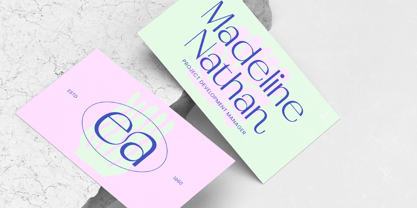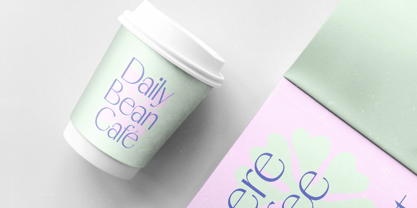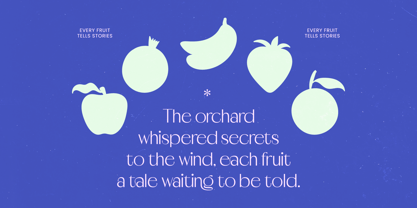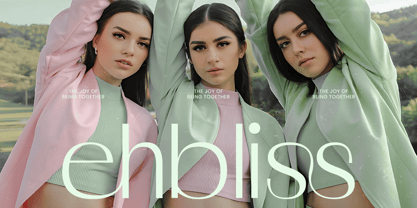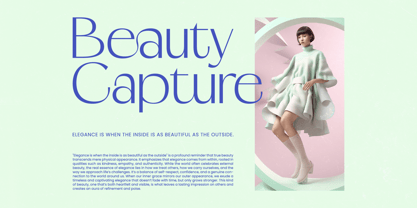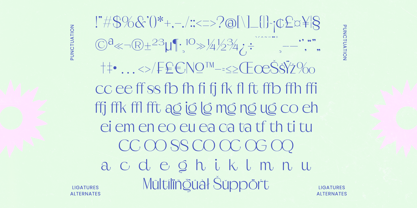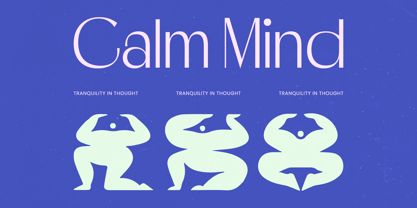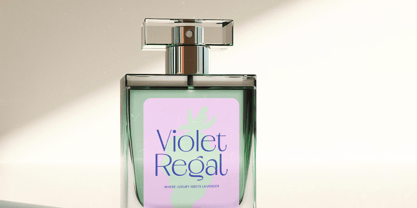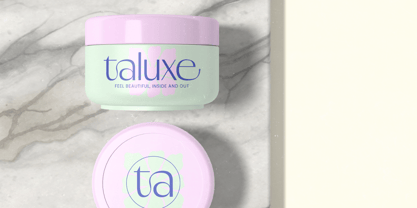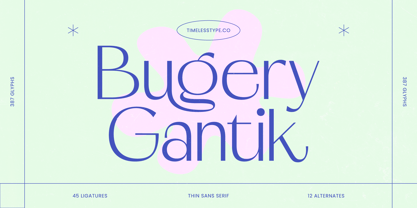
Bugery Gantik
Die Schriftfamilie Bugery Gantik wurde von Heru Utama Putra entworfen und von Timelesstype Studio veröffentlicht. Bugery Gantik enthält 2 Stile und Familienpaketoptionen. Mehr über diese Familie
Bugery Gantik – Thin Sans Serif adapts seamlessly across global markets, making it incredibly versatile for international projects. This broad character set empowers designers to maintain a consistent brand identity regardless of linguistic boundaries, offering a truly universal aesthetic for any multicultural campaign. Perfect for those seeking to define a premium image, Bugery Gantik – Thin Sans Serif is the ultimate choice for luxury branding, editorial design, and high-fashion packaging. It is perfectly suited for sophisticated logos, chic invitation cards, and stunning headlines that require a touch of artistic flair. Whether used in digital layouts or high-quality print materials, it commands attention with understated confidence.